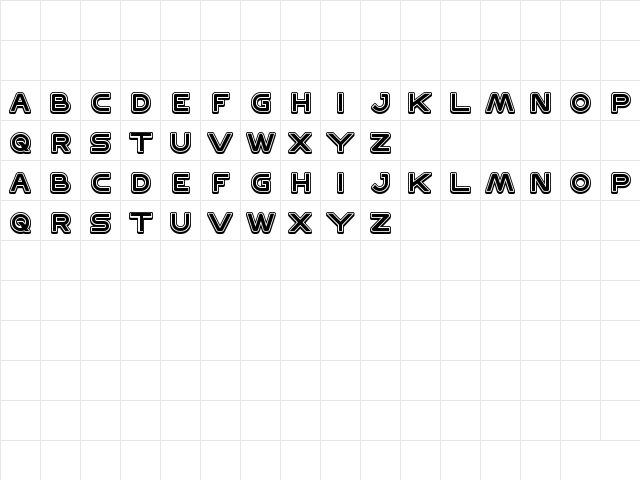
DISCOVERY Regular
Design Context for DISCOVERY Typeface
DISCOVERY is a composed and adaptable typeface that performs quietly and consistently across a wide range of design contexts.